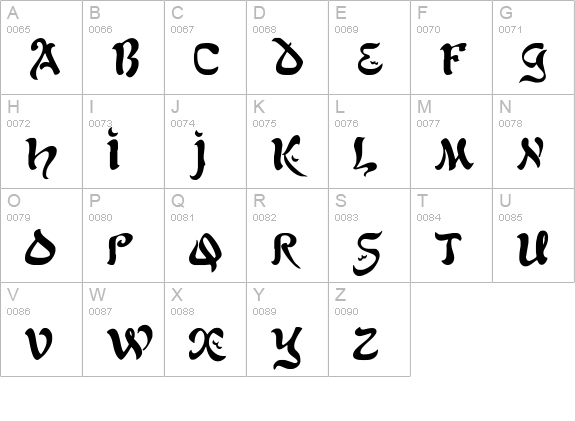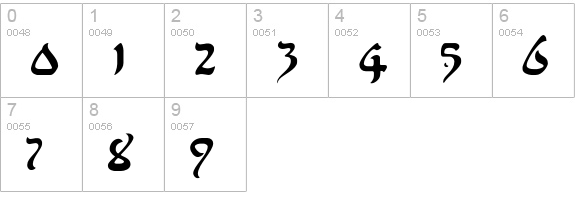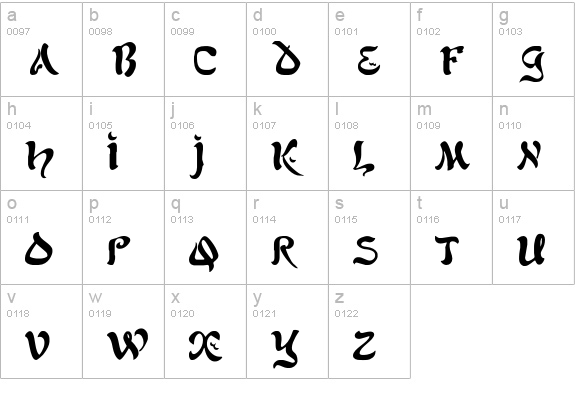
AlfredDrake Font Details
AlfredDrake font is a versatile and elegant typeface that exudes sophistication and charm. With its classic yet modern design, this font is perfect for a wide range of design projects, from branding to editorial design. The clean lines and balanced proportions of AlfredDrake font make it a timeless choice for any design need. What makes AlfredDrake font even more appealing is that it is available for free download at FontsMarket.com. You can easily access this stylish font and incorporate it into your creative projects without any cost. Whether you are a designer looking to add a touch of elegance to your work or a business owner seeking a fresh look for your brand, AlfredDrake font is the perfect choice. Download it today and elevate your designs with this beautiful and freely available typeface.